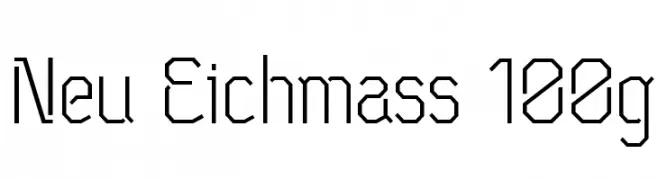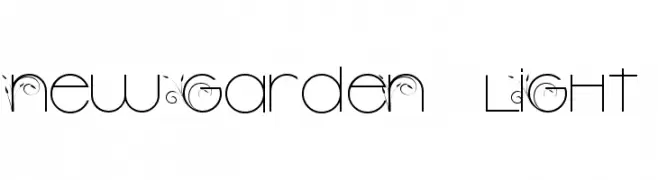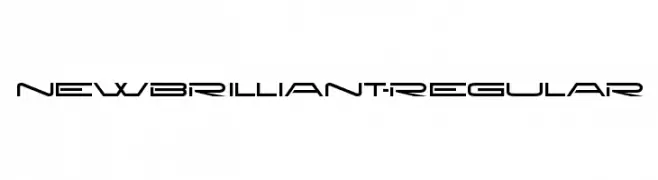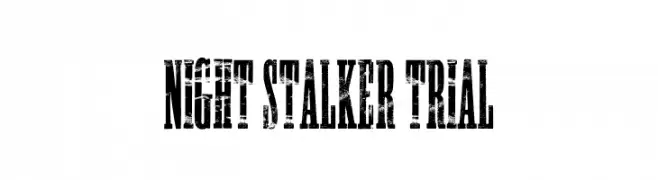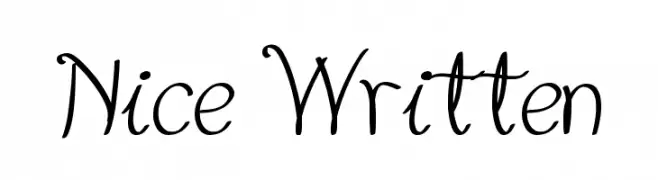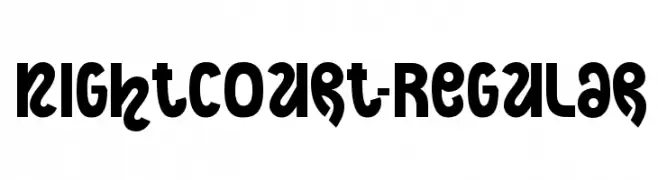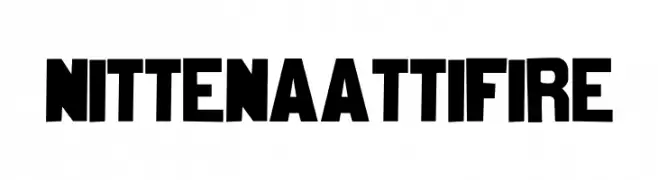
A modern, elegant font with thin lines and subtle decorative swirls.
A futuristic, angular font with a sleek, geometric design.
A playful and elegant handwritten script font with dynamic strokes.
A bold, dynamic font with playful curves and angles, perfect for impactful designs.
A bold, geometric font with a modern and futuristic style.
A playful, casual handwritten font with rounded edges and irregular letterforms.
A bold, blocky font with strong, uniform characters ideal for impactful designs.